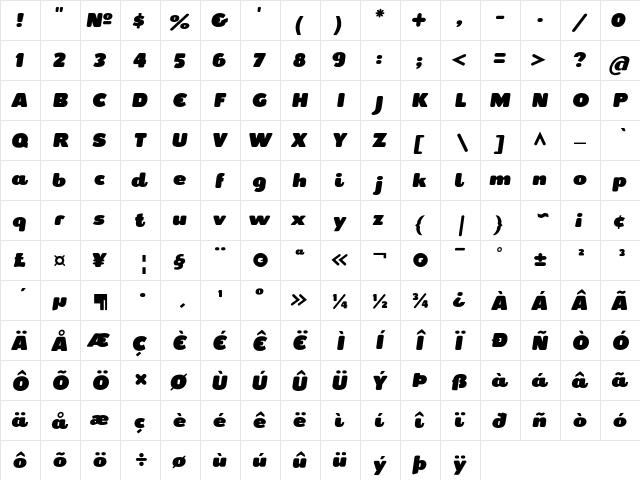
Cepo Italic
Design Context for Cepo Typeface
Cepo is a composed and adaptable typeface that performs quietly and consistently across a wide range of design contexts. The dynamic lean of this cut emphasises speed and emphasis in any layout.
Pro Tip: Use Cepo for emphasis, pull quotes, and subheadings where its slanted energy can add rhythm to the layout.